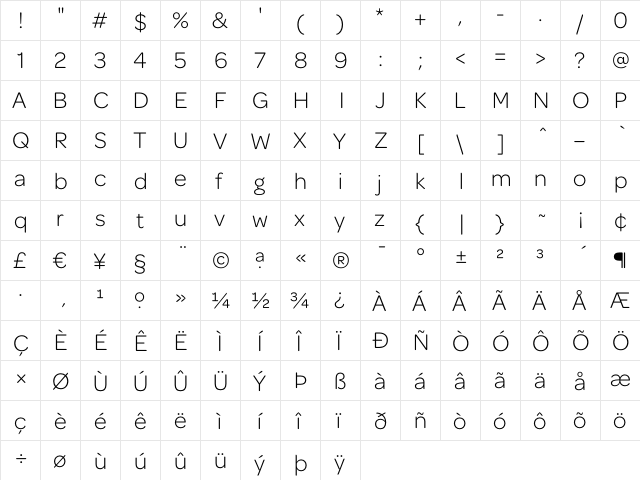
Omnes Light
Design Context for Omnes Typeface
Omnes is a composed and adaptable typeface that performs quietly and consistently across a wide range of design contexts. Its slender proportions lend an understated elegance to any composition.
Pro Tip: Pair Omnes with a font of contrasting weight or personality to build a more expressive typographic hierarchy.